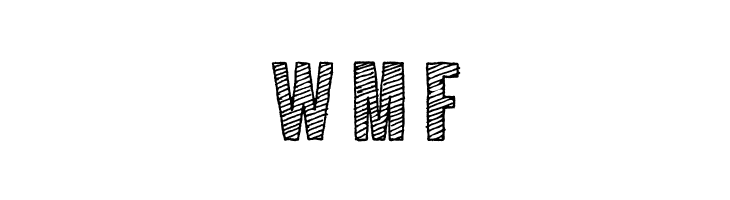
Coluna-CondensedBold Font
A bold, condensed sans-serif font with a modern and impactful style.
ColunaRounded-CondensedBold Font
A bold, condensed font with rounded edges and tight spacing.
ColunaSketch-CondensedBold Font
A bold, condensed font with a sketch-like texture, ideal for standout designs.